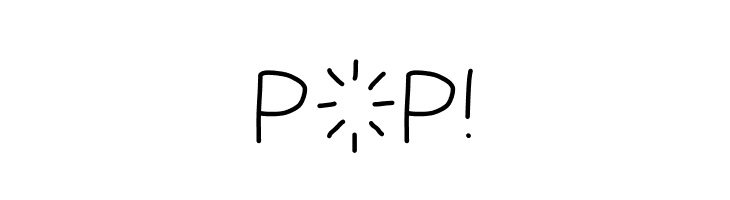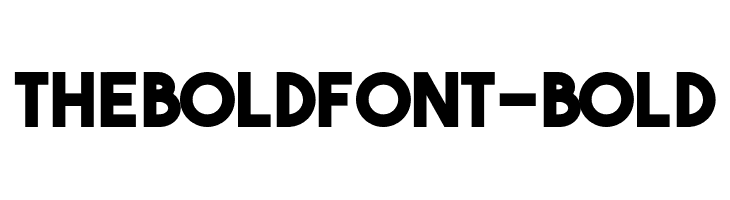
A bold, modern font with thick strokes and a geometric design.
A modern, rounded, and geometric font with a condensed appearance.
A modern, handwritten font with elongated, elegant letters.
A playful, hand-drawn font with a doodle-like, textured style.
A bold, classic serif font with strong strokes and elegant curves.
A modern, geometric font with rounded edges and a futuristic style.
A modern, geometric font with clean lines and rounded edges.
A bold, geometric font with sharp angles and a modern, industrial style.